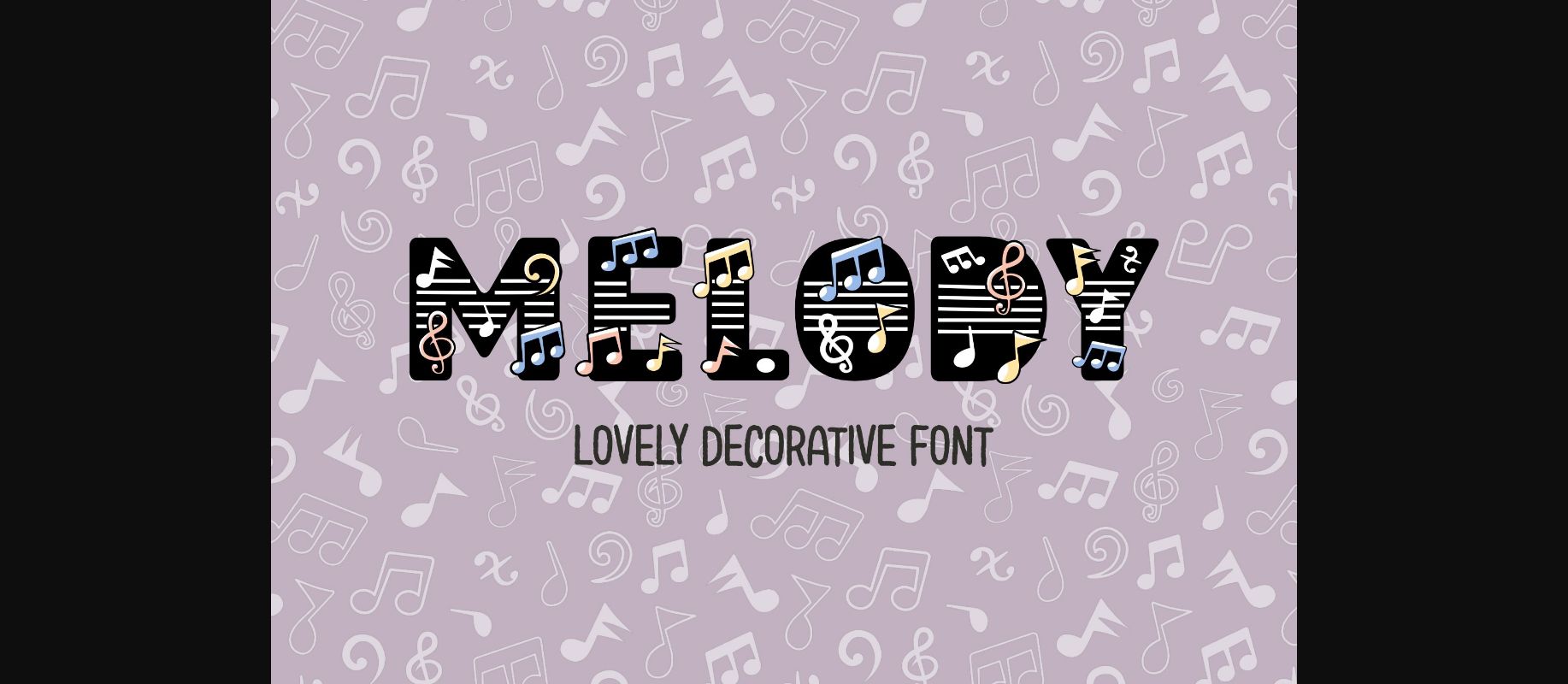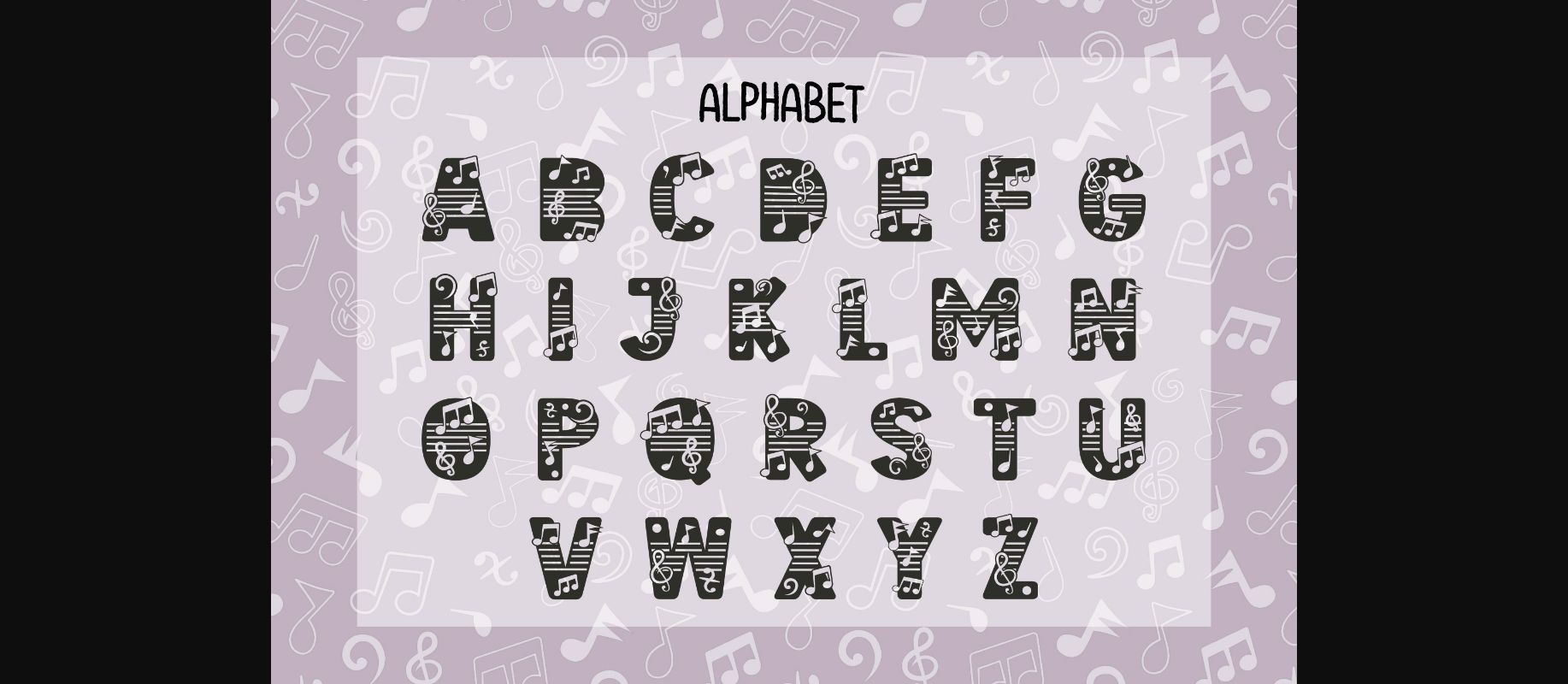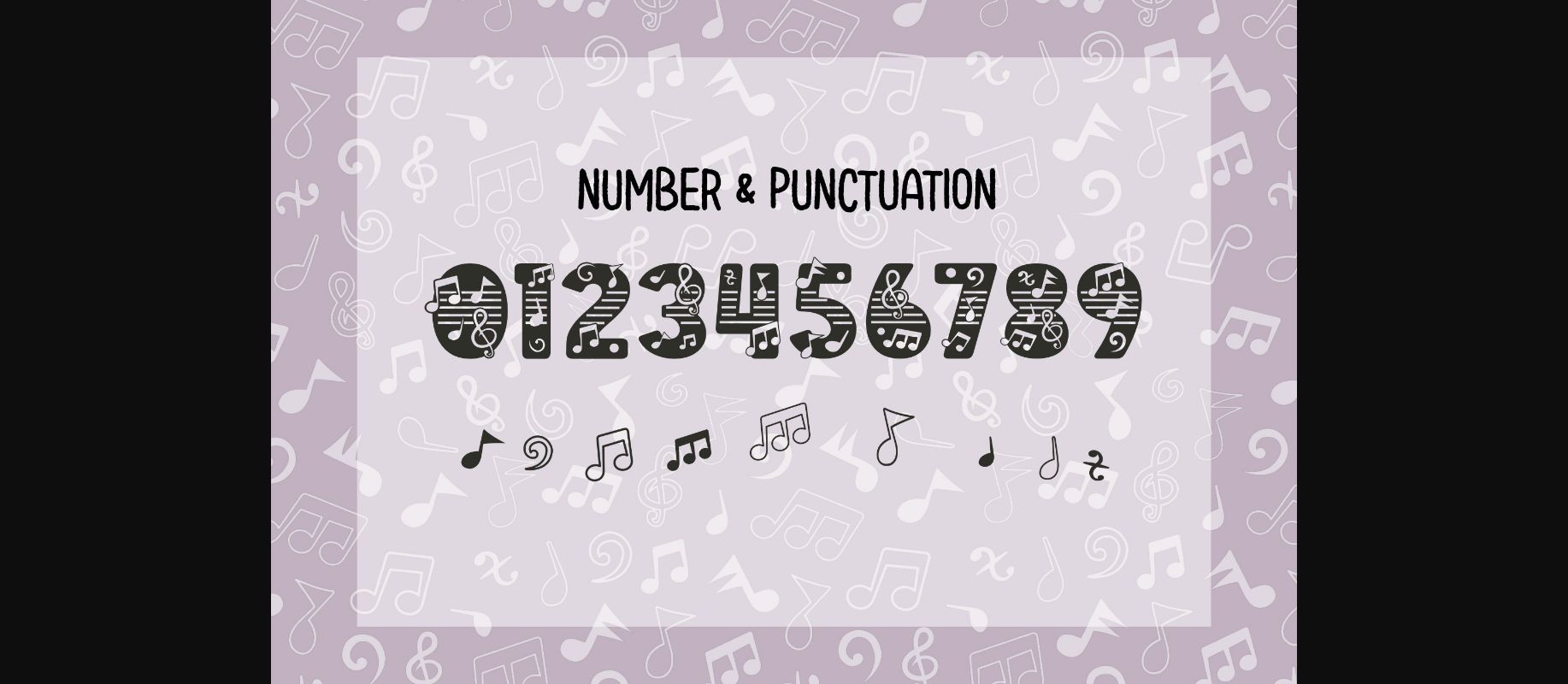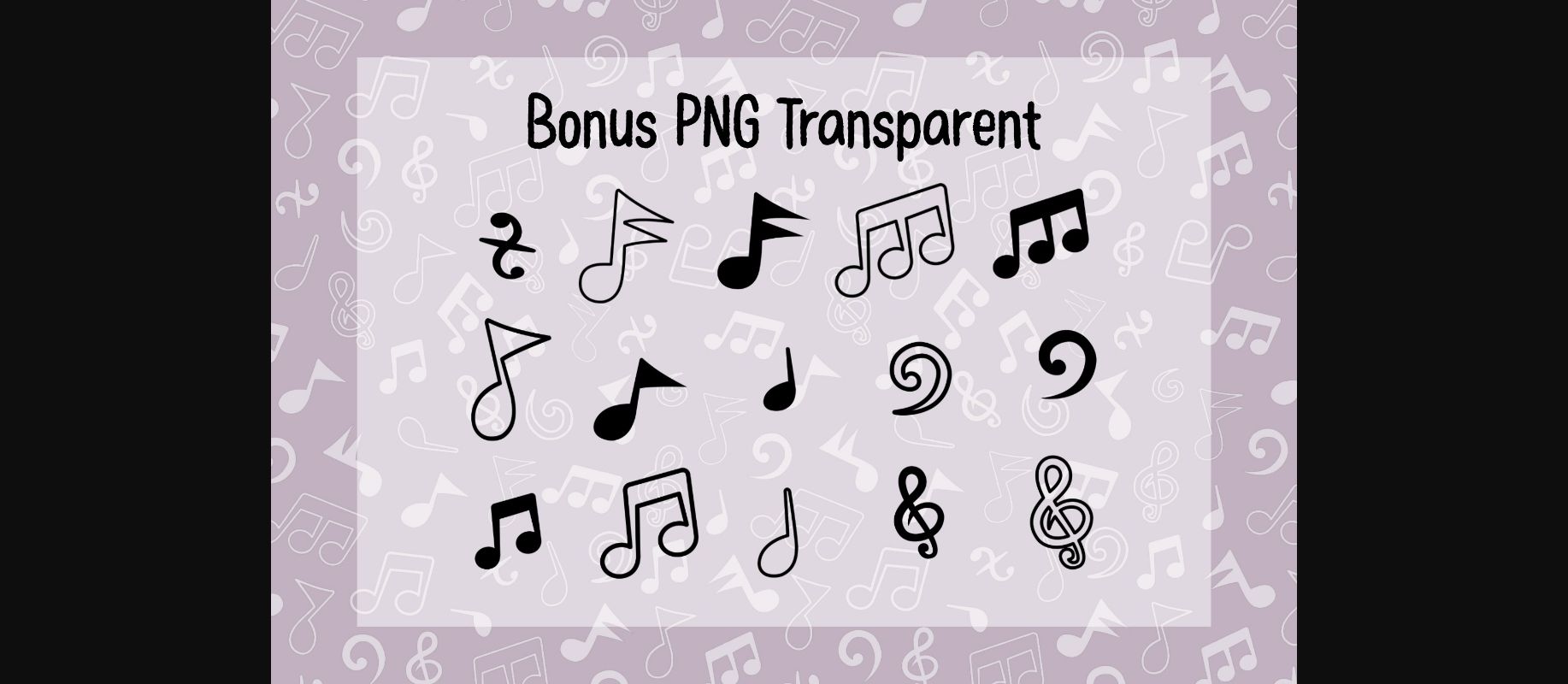
Melody Font
About Melody Font
Melody is a lovely decorative font. This font is the perfect fit for all of your logos, branding, social media, crafty DIY projects, and much more!